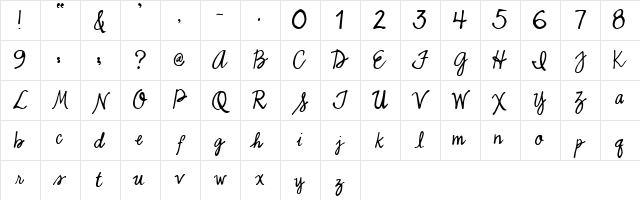
2Peas FancyPants Regular Free Font
2Peas FancyPants Regular
Complete 2Peas FancyPants Regular glyph index. Displaying only characters natively supported by 2Peas FancyPants Regular font.
Design Context for 2Peas FancyPants
2Peas FancyPants is a composed and adaptable typeface that performs quietly and consistently across a wide range of design contexts.